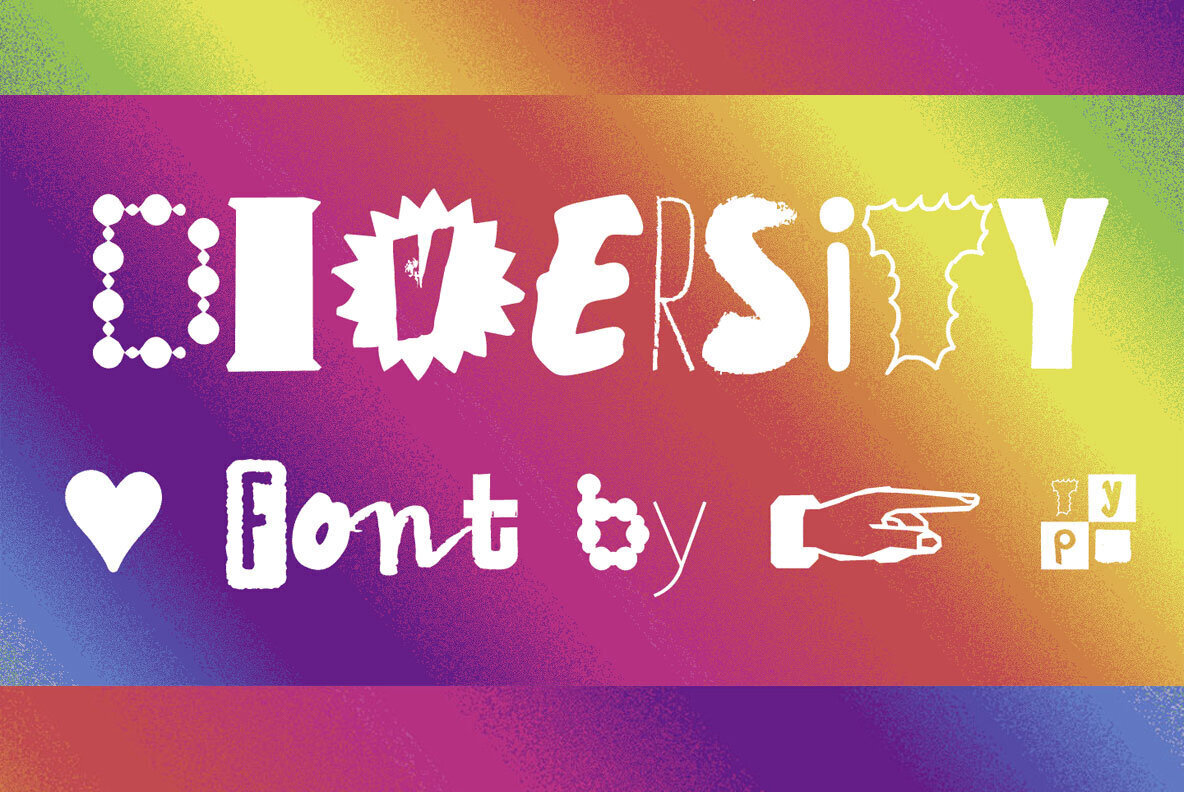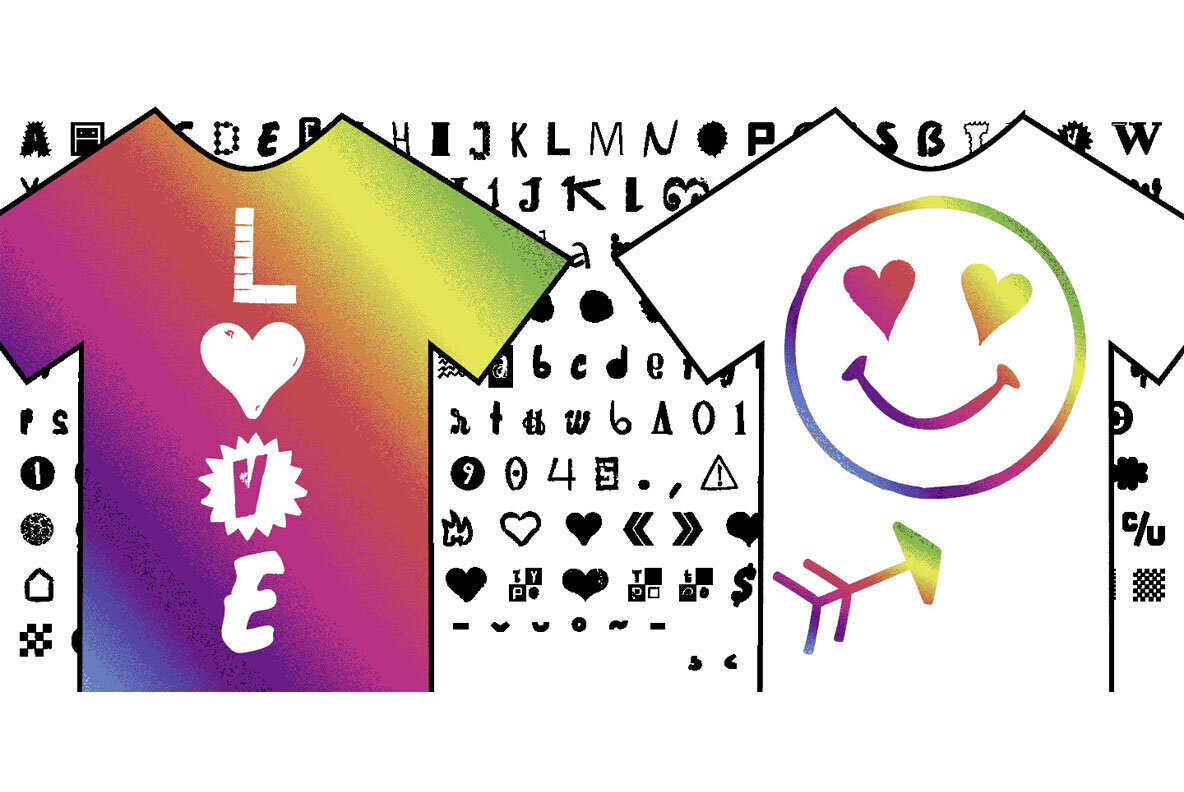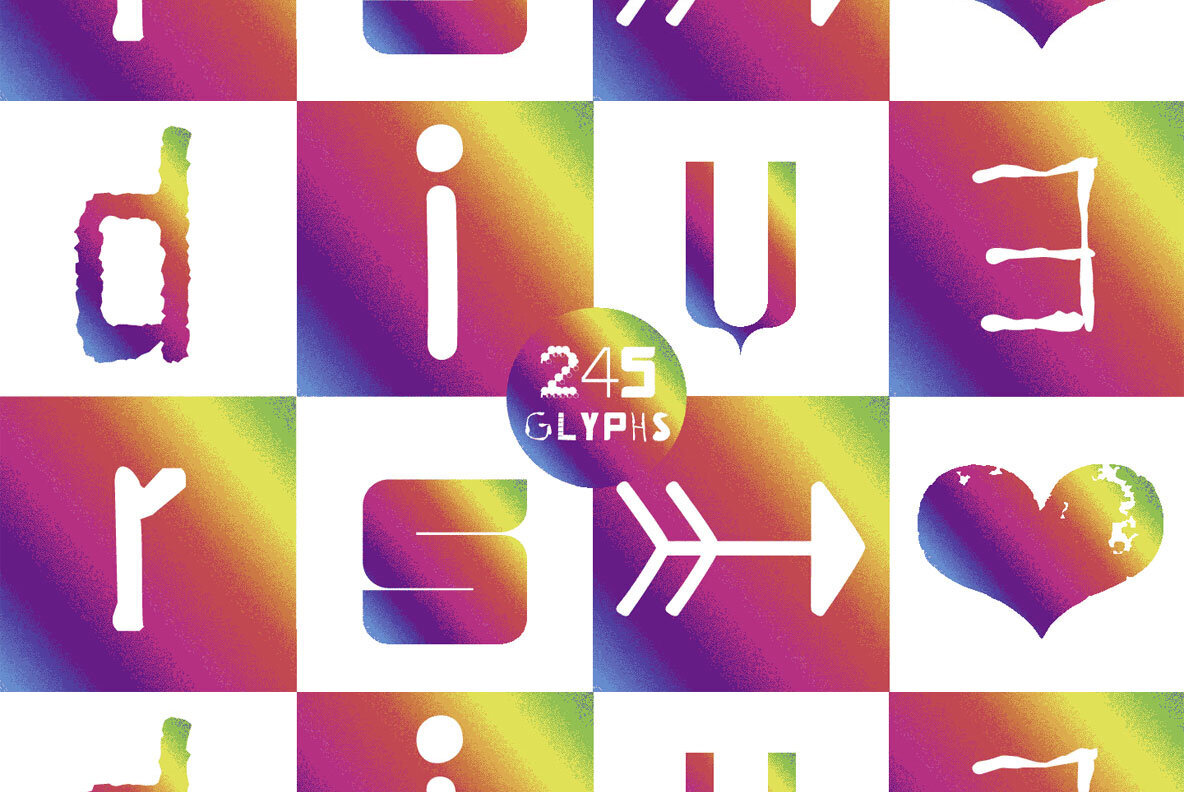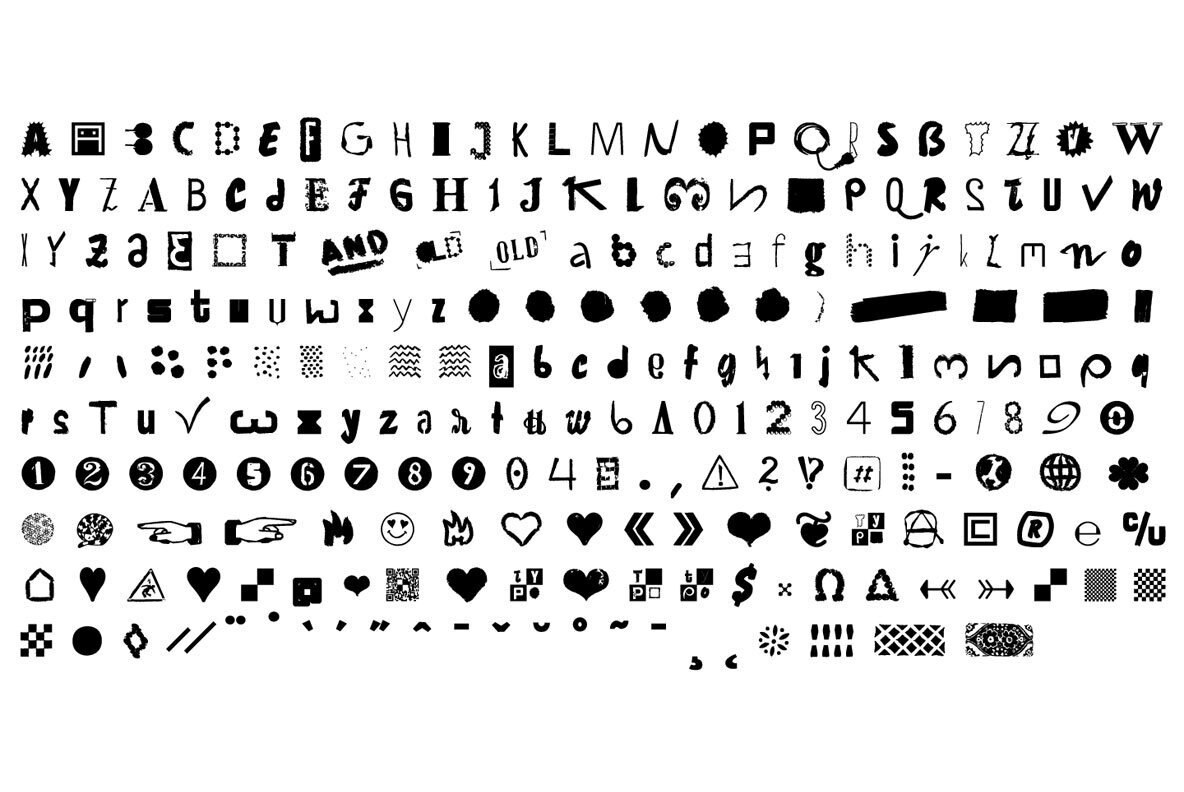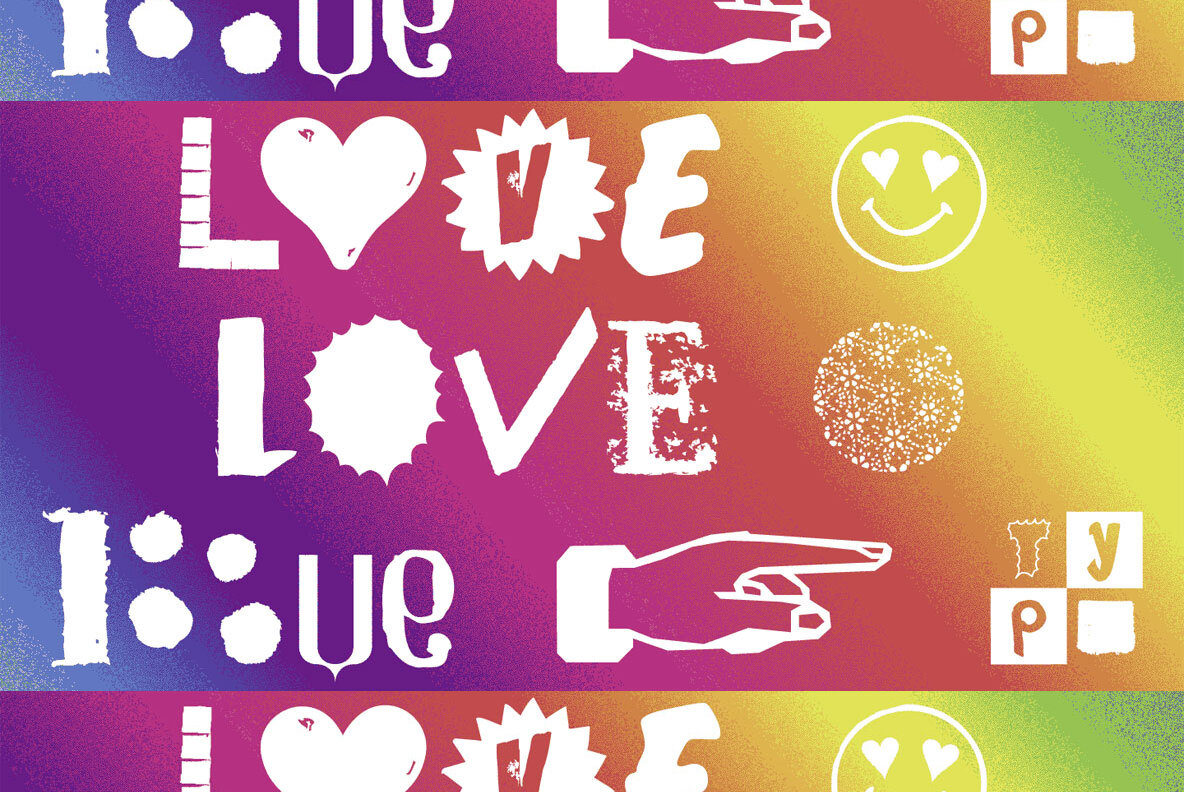
Diver Si Ty Font
DIVERSiTY Font Mix
The typeface DIVERSiTY Font is designed from 2022 for the font foundry Typo Graphic Design by Manuel Viergutz as a political statement #diversity #
1 font-styles (Mix) with 245 glyphs incl. decorative extras like icons, arrows, dingbats, emojis, symbols, geometric shapes (type the word #LOVE for or #SMILE for as OpenType-Feature dlig) and stylistic alternates (3 stylistic sets).
For use in logos, magazines, posters, advertisement plus as webfont for decorative headlines. The font works best for display size.